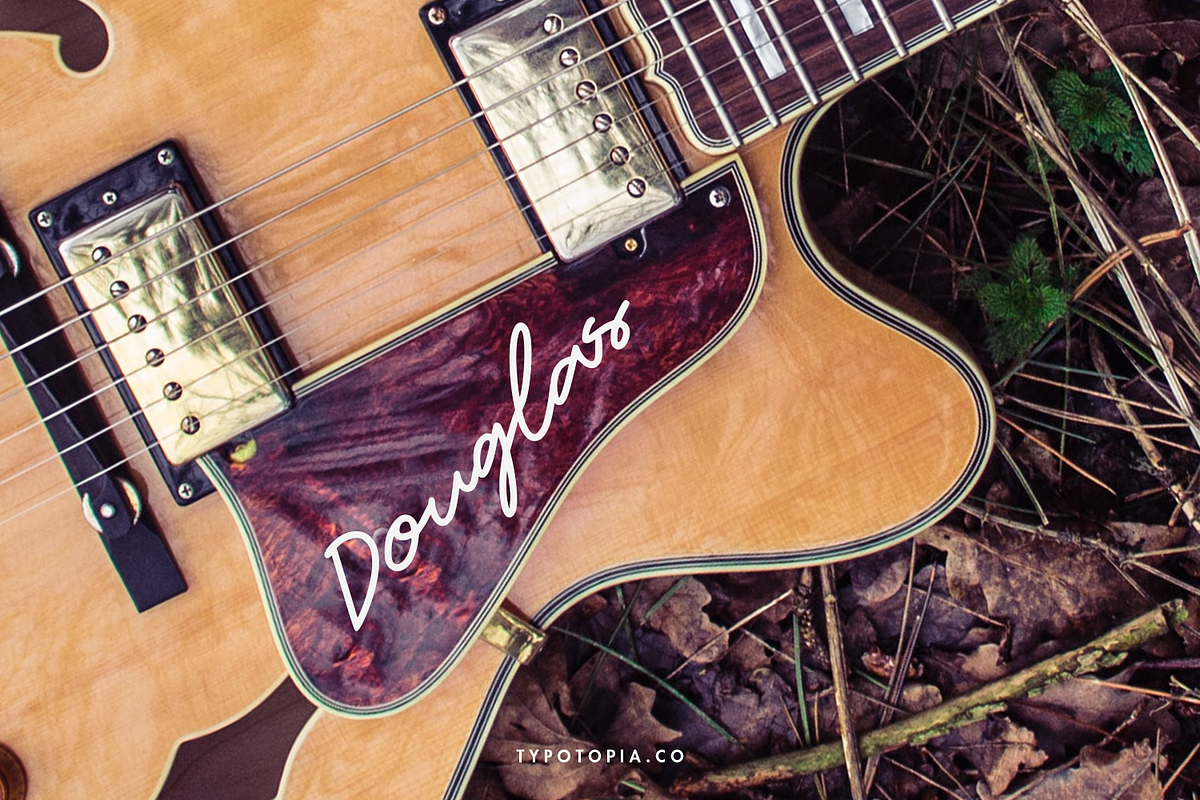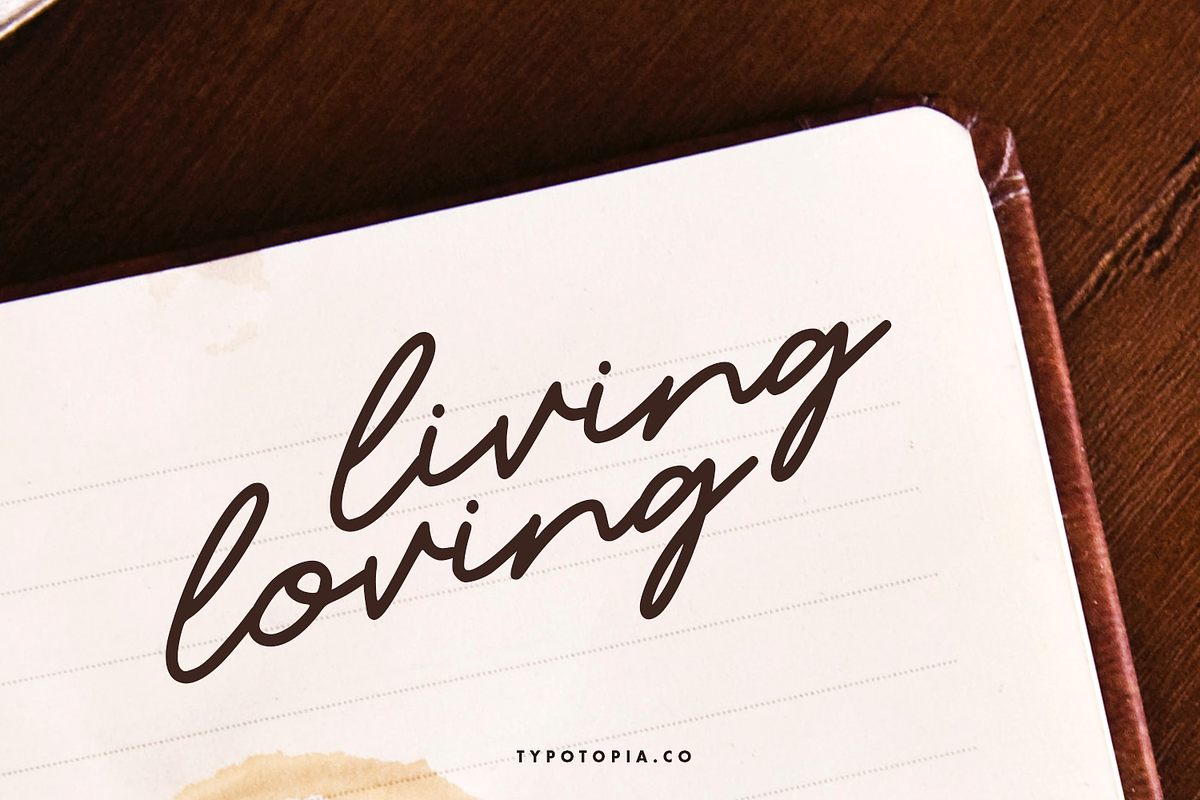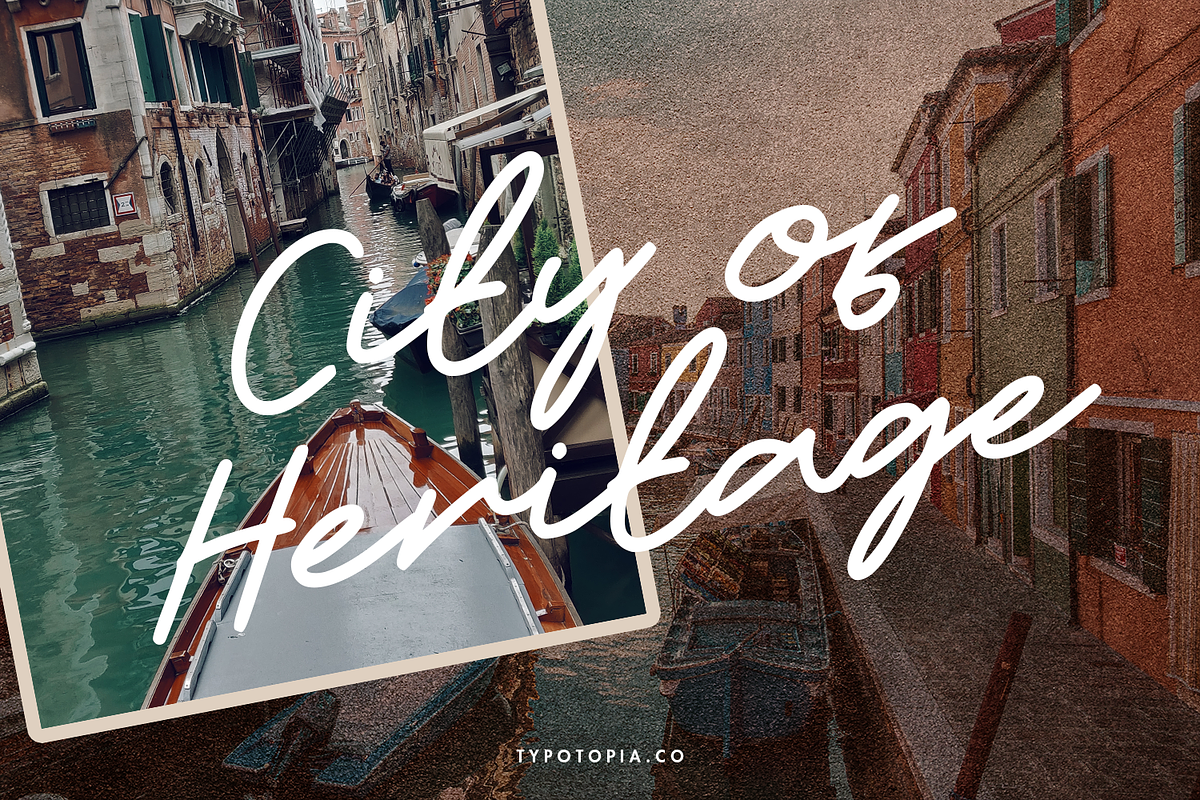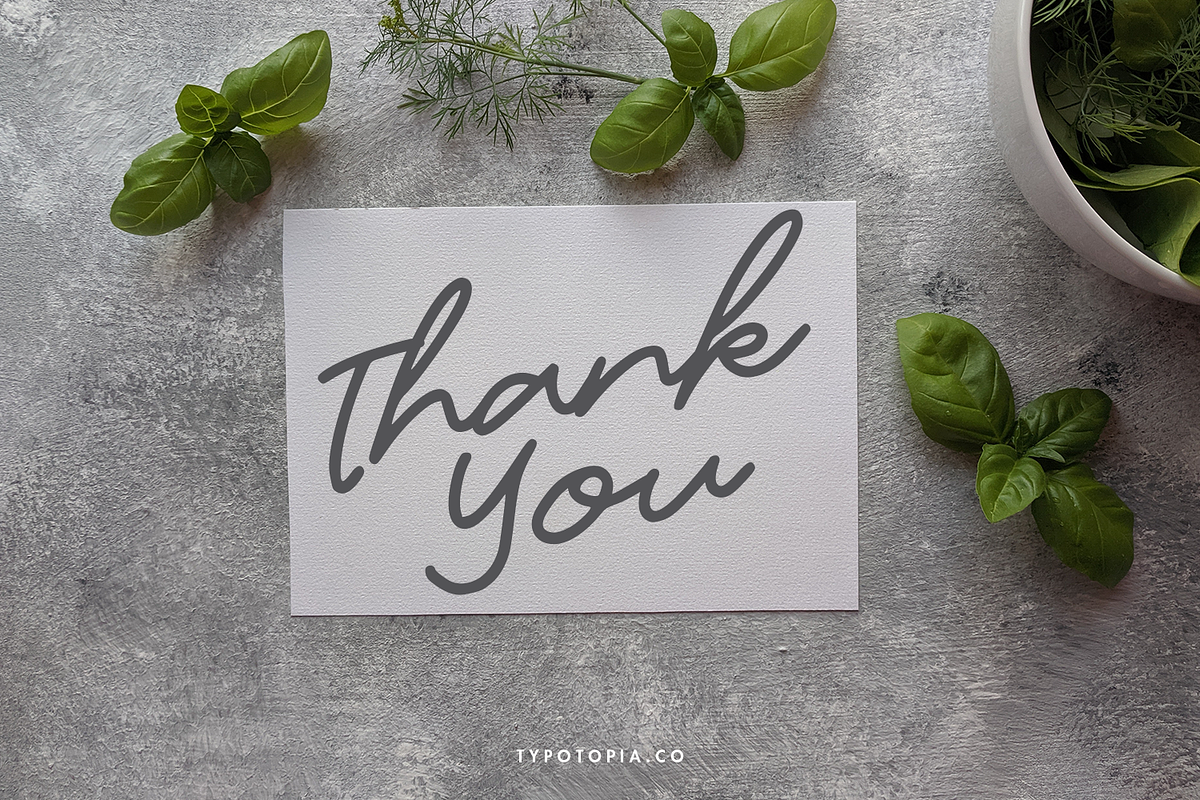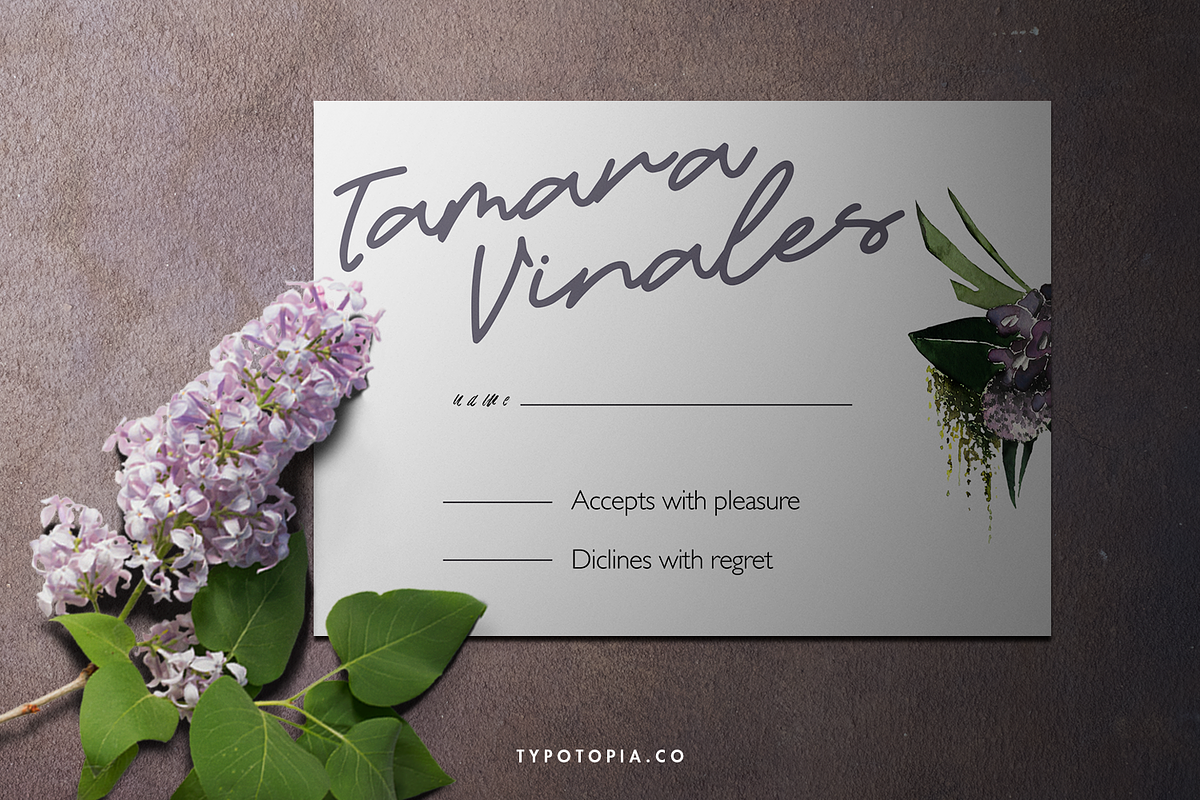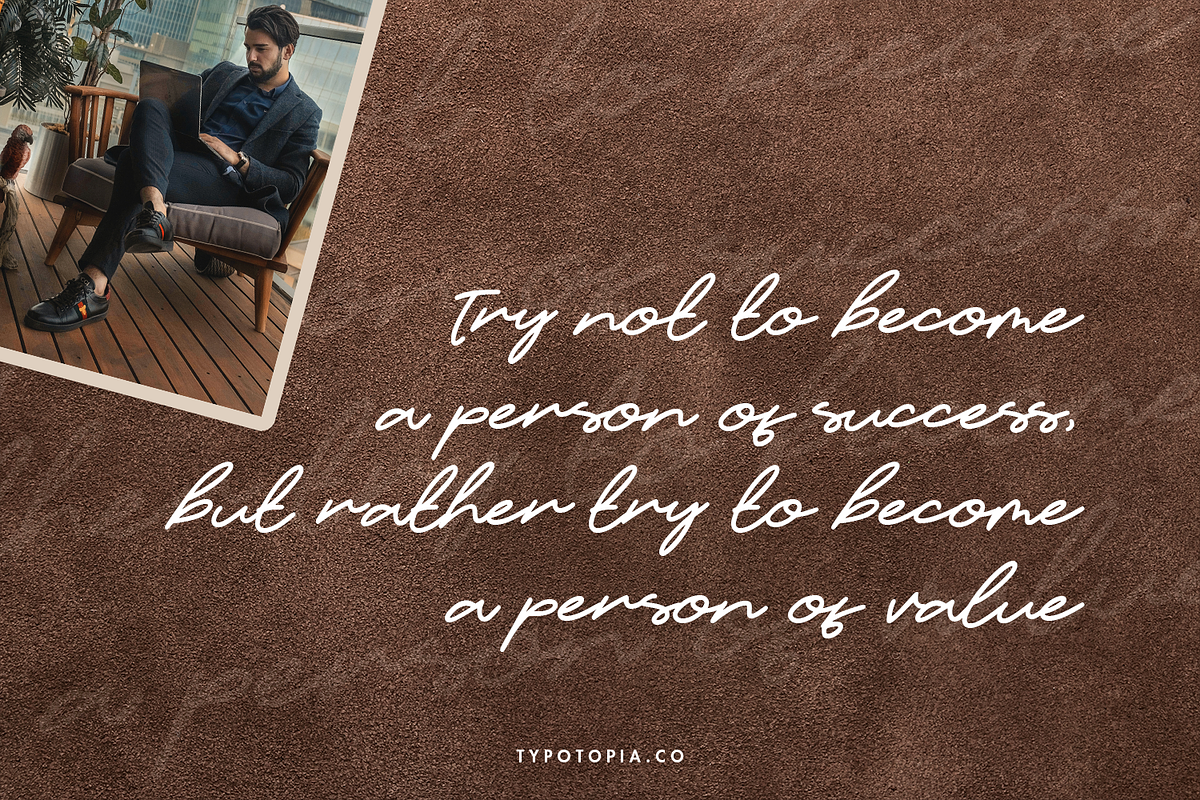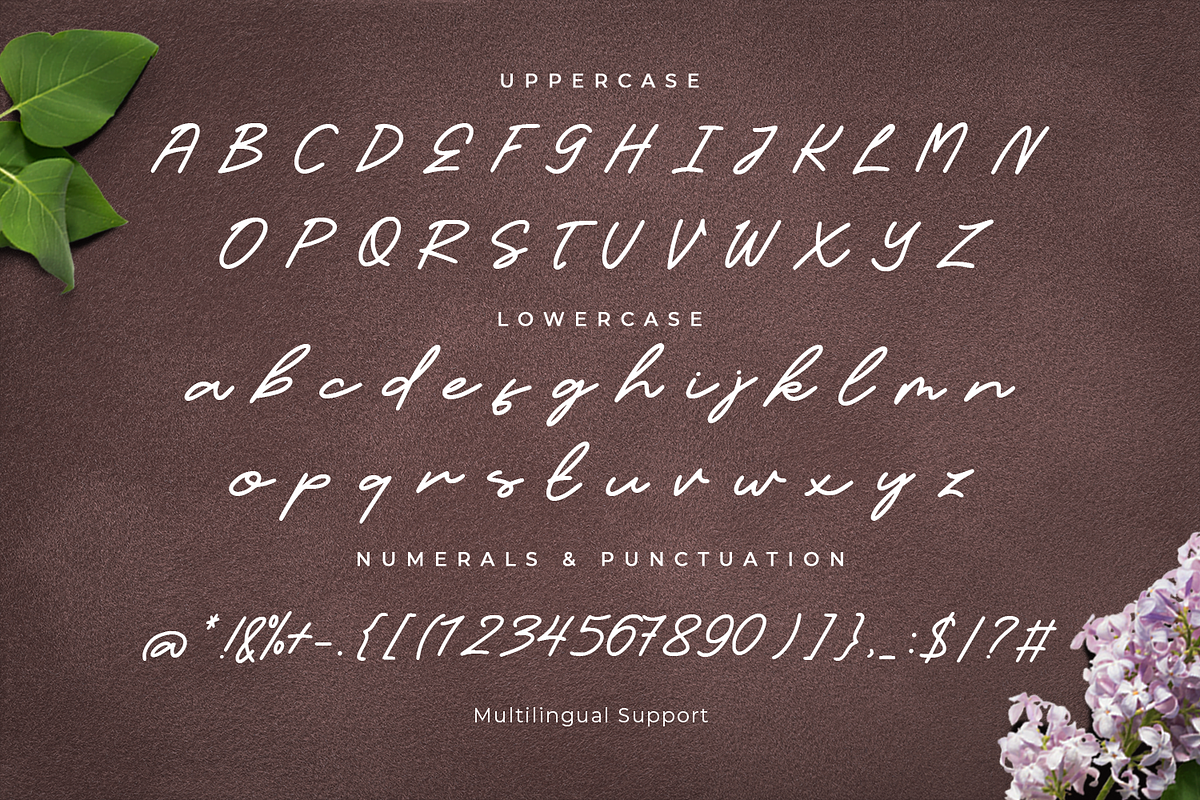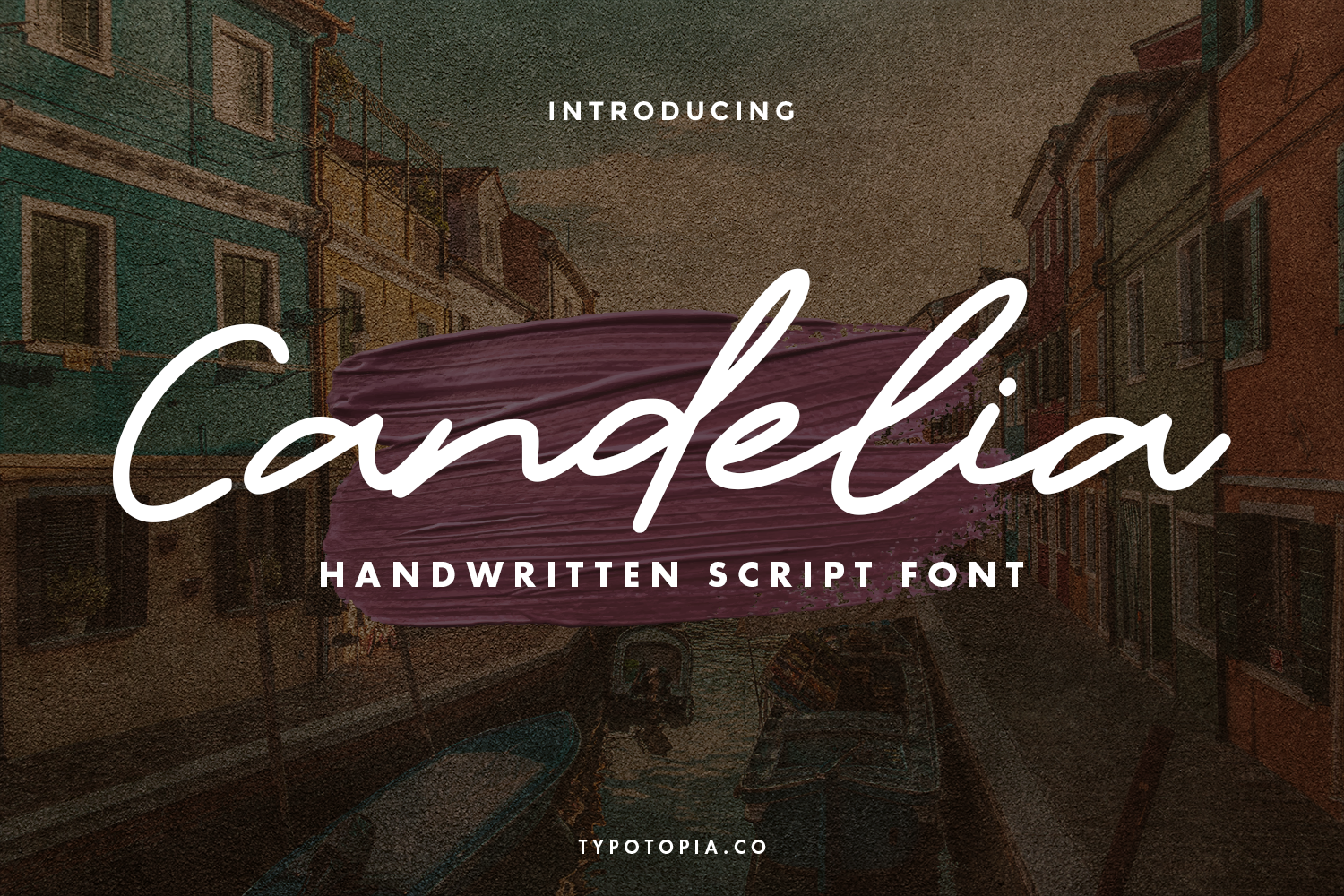
Candelia Script Font
Introducing, Candelia a Fancy Script Font
Candelia is a Fancy Script Font that is absolutely great for your next creative project such as logos, printed quotes, invitations, cards, product packaging, headers, Logotype, Letterhead, Poster, Apparel Design, Label, and etc.
This Versatile Font includes also support a Multilingual Characters. Making this Font a Swiss Army knife in your Font Library. It's extremely fun to use as each word can be transformed to your liking.